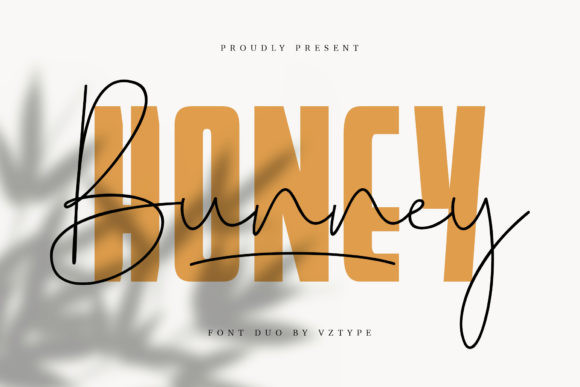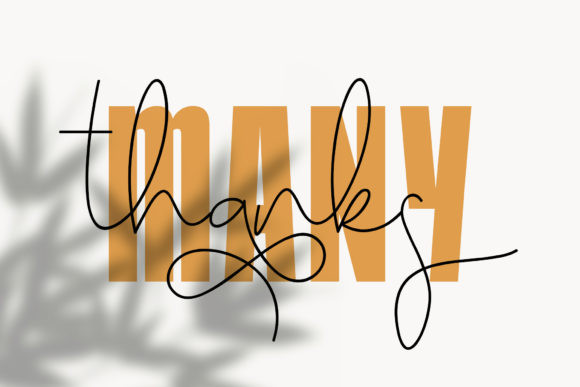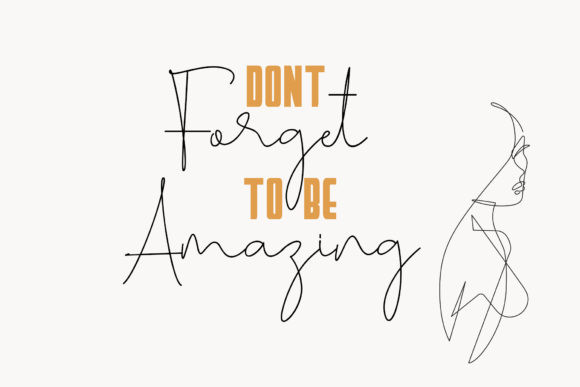
Honey Bunney Font
Honey Bunney is a gorgeous font duo, perfectly suited for taking a wide range of design projects to the next level. Get inspired by its unique charm!